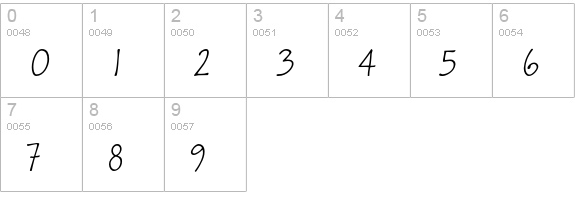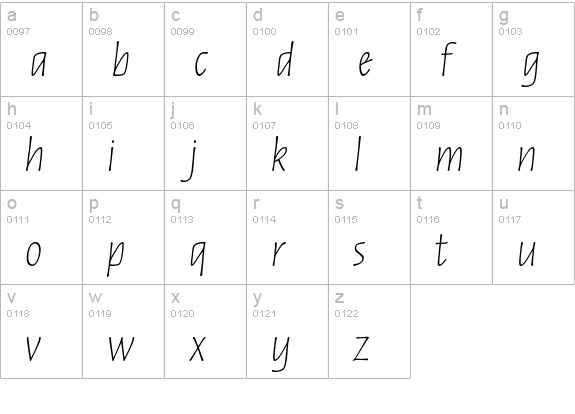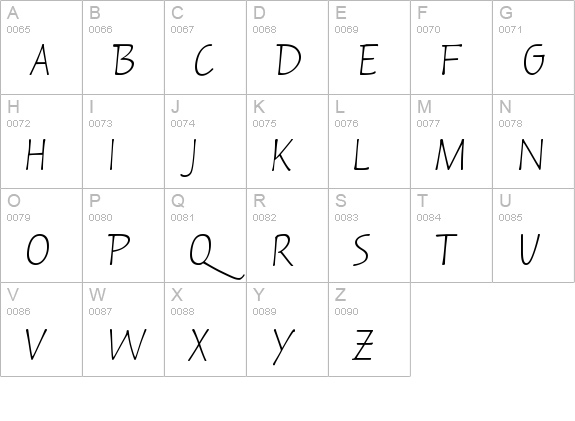
Russell Oblique is a distinctive, italic variant in the Russell typeface family \xE2\x80\x94 well suited to design and typography projects.
Russell Oblique font is a modern and stylish typeface that exudes elegance and sophistication. Its sleek and slanted design adds a unique touch to any project, making it perfect for branding, logos, headlines, and more. The sharp angles and clean lines of Russell Oblique give it a contemporary edge while maintaining a sense of professionalism. This versatile font is ideal for both print and digital use, ensuring that your designs will stand out and make a lasting impression. Whether you're creating a sleek website or designing a sleek poster, Russell Oblique is sure to elevate your work to the next level. Best of all, Russell Oblique font is completely free to download at FontsMarket.com. So why wait? Add this stunning typeface to your collection today and take your designs to new heights!